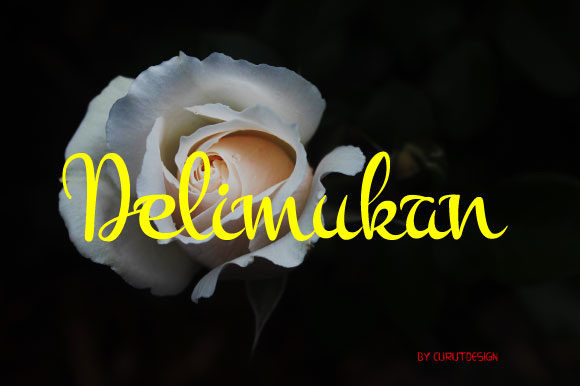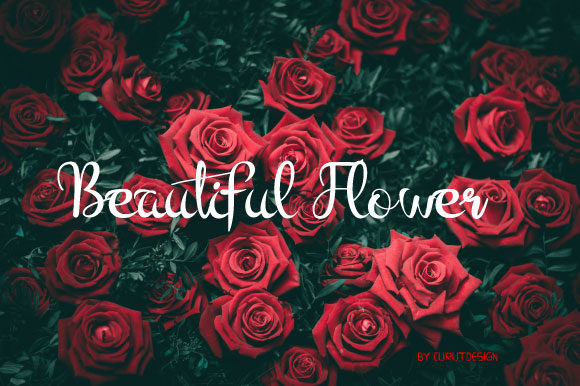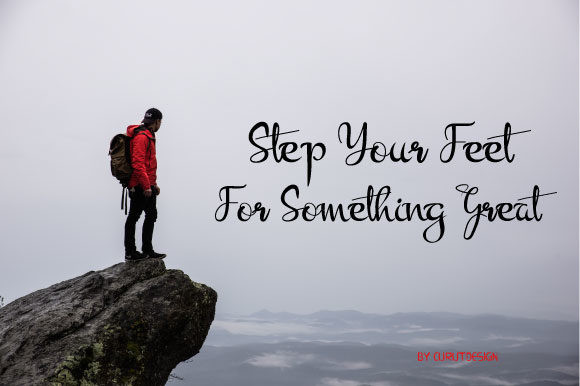
Delimukan Font
Delimukan combines authentic lettering with a contemporary approach to design. This one-of-a-kind handwritten font will make any design project stand out.